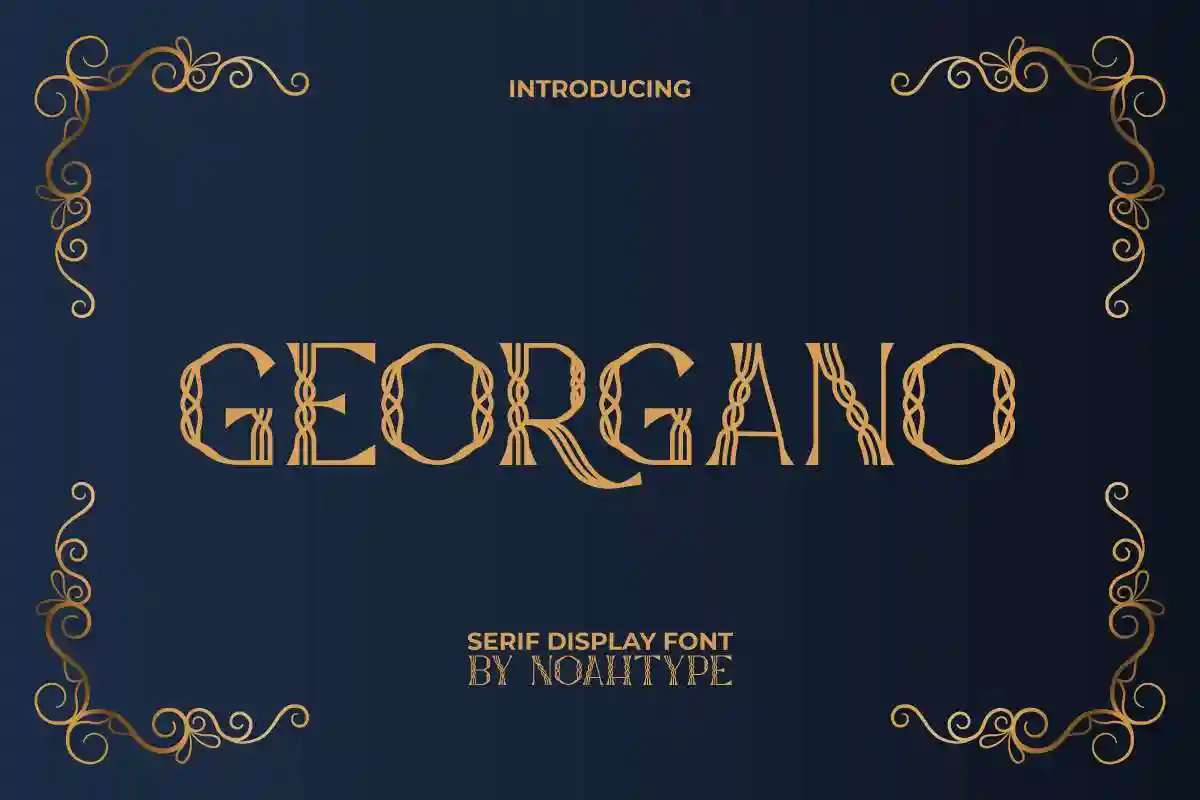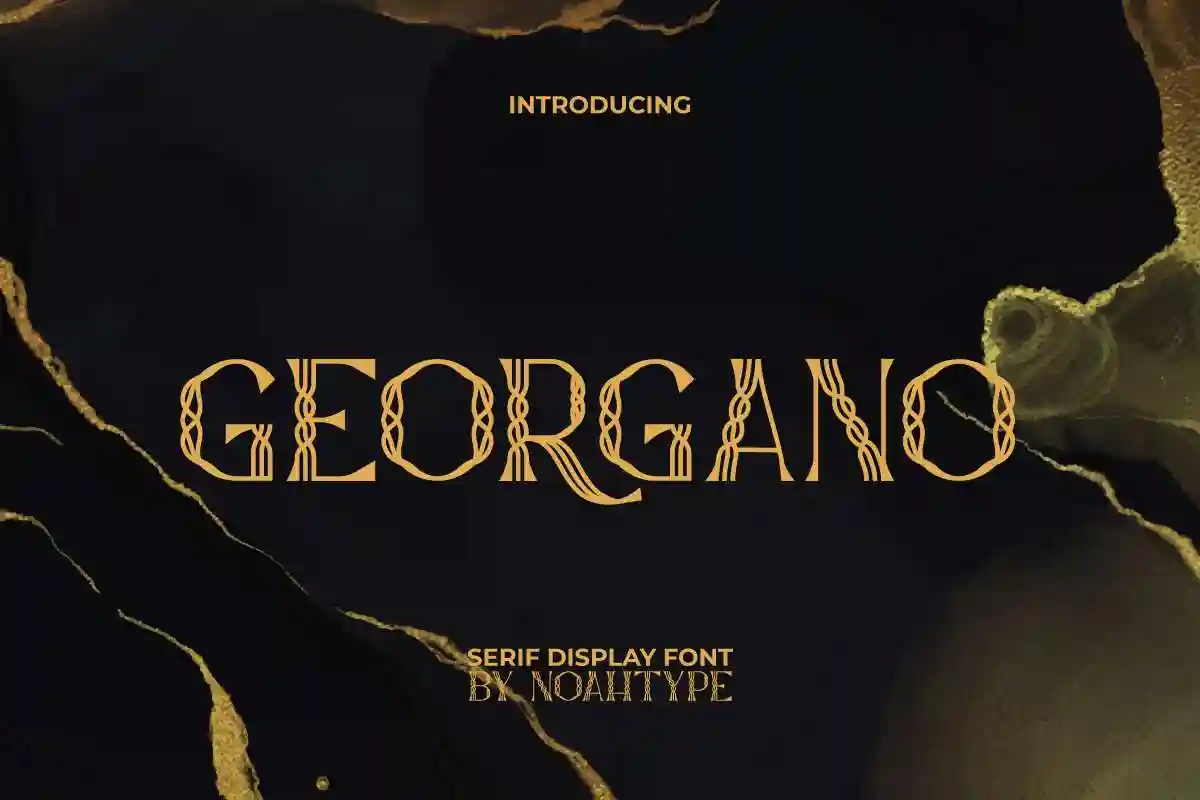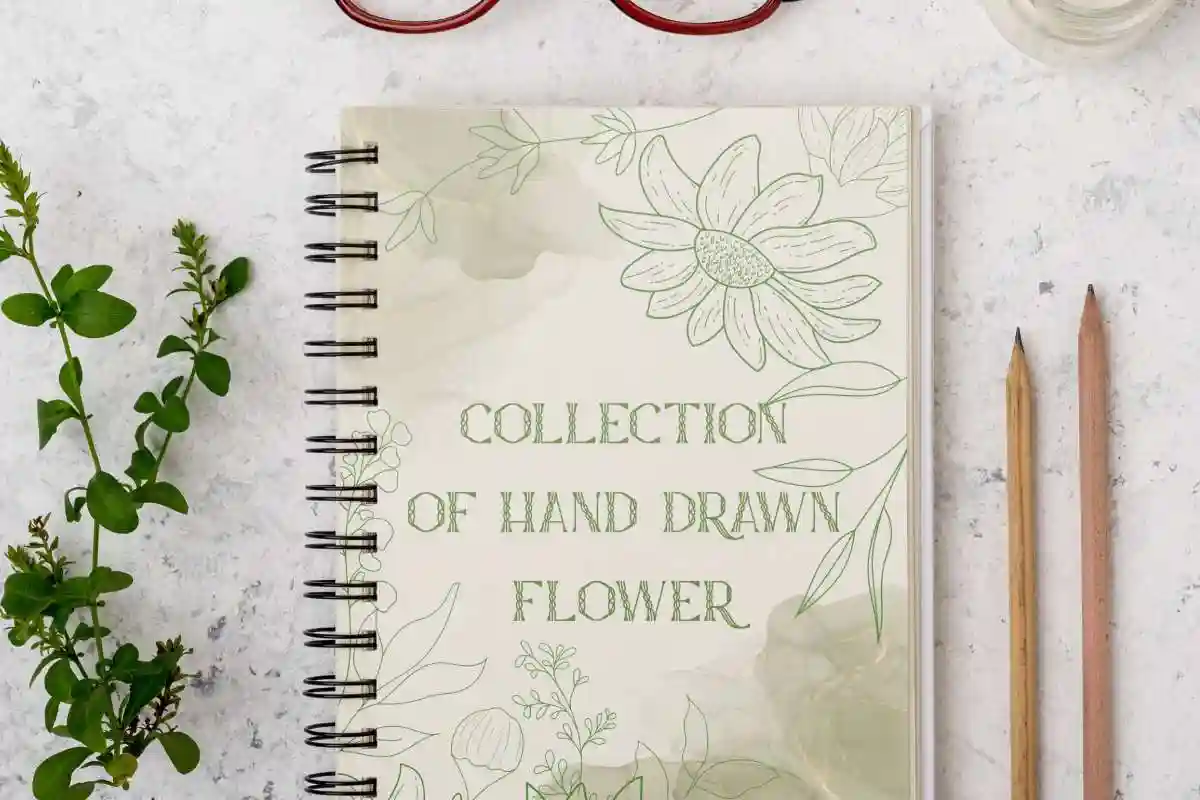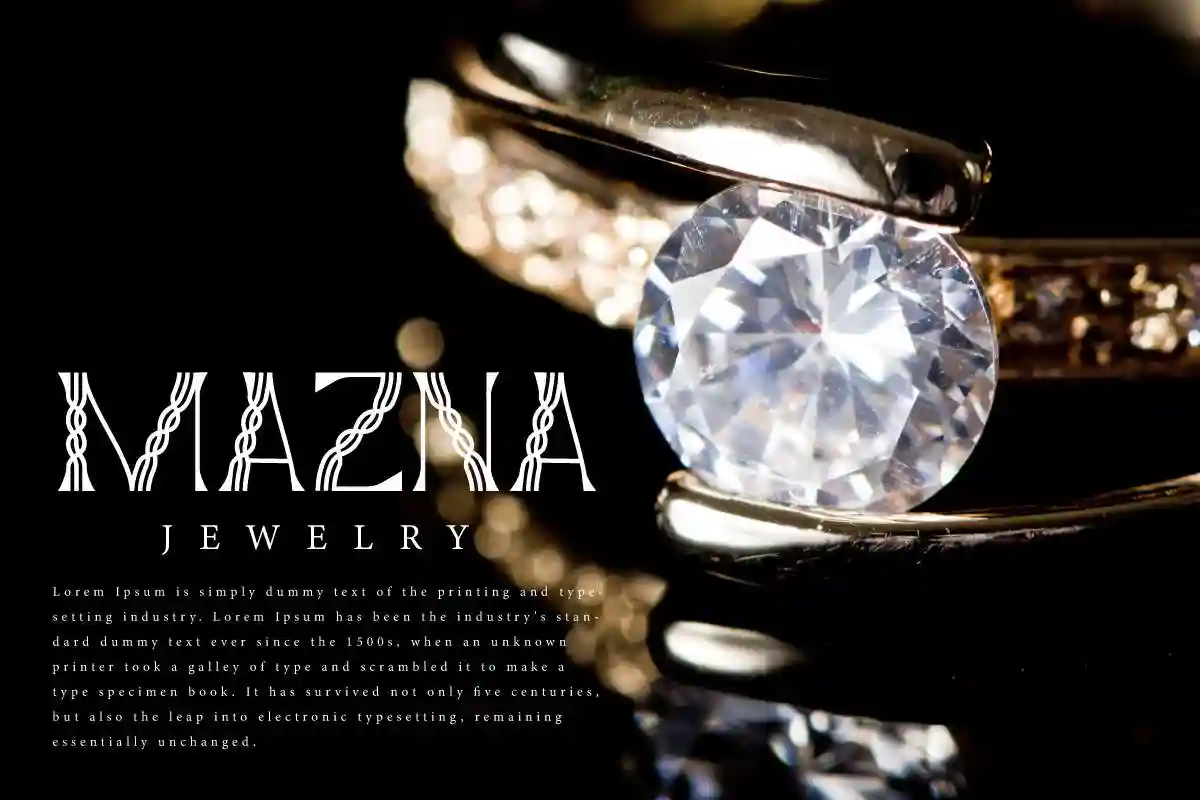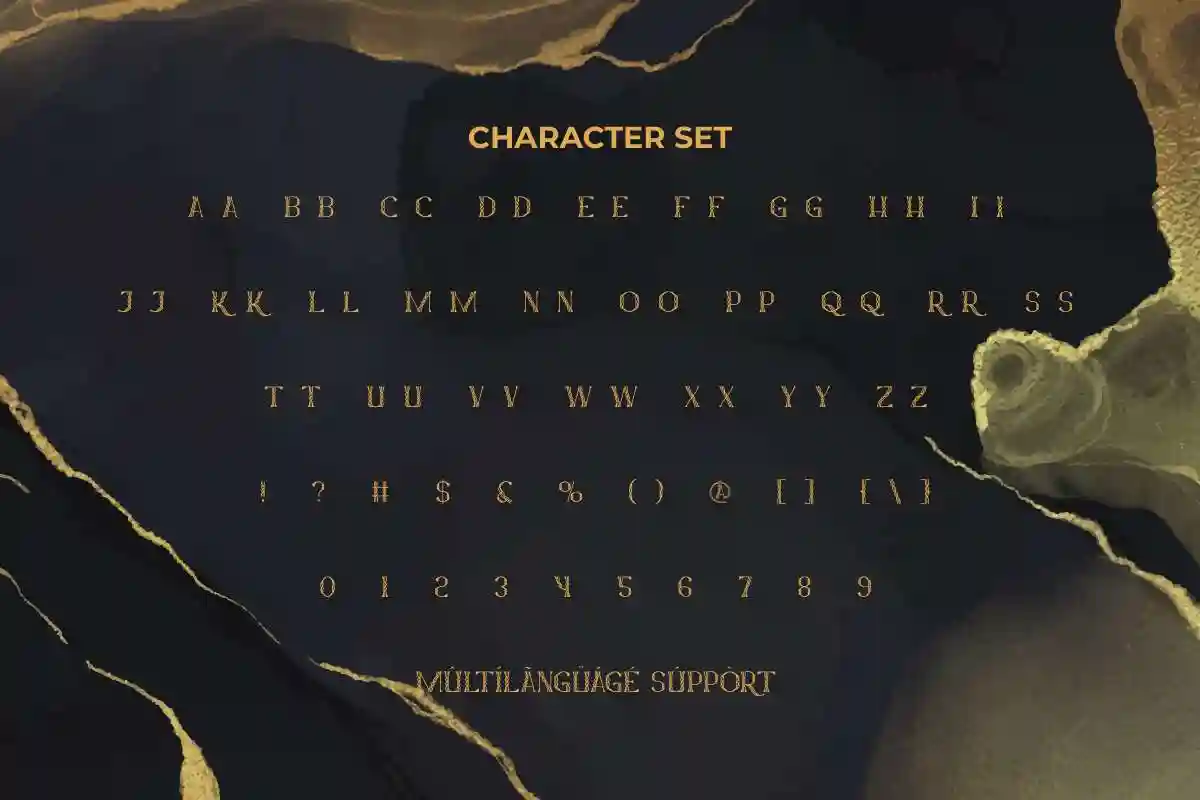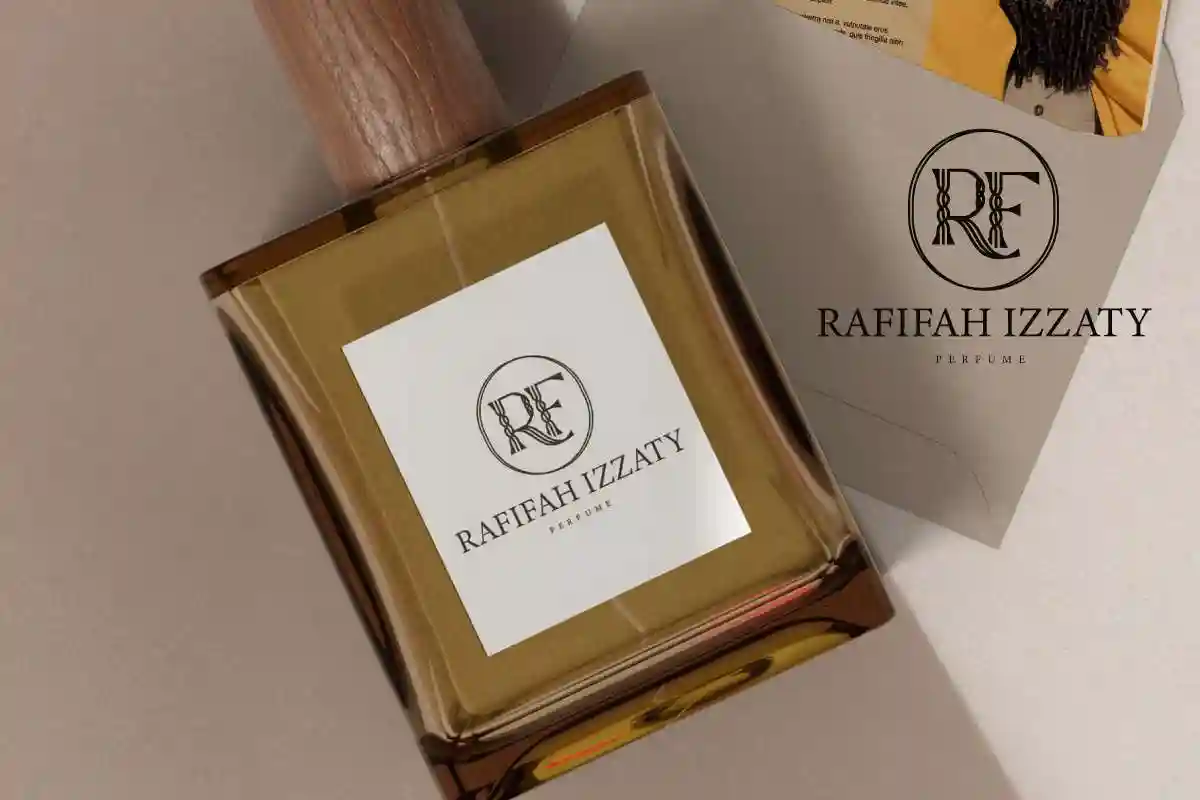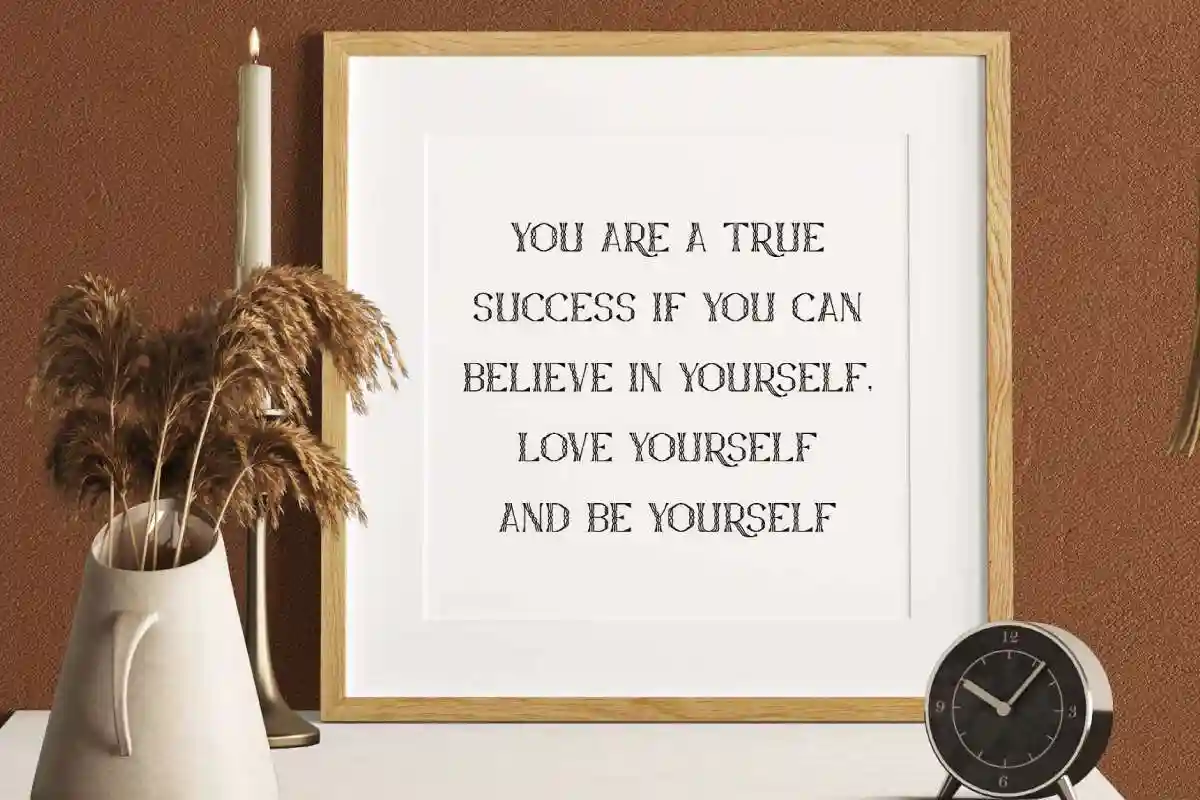
Georgano Font is a contemporary serif display font with uniquely retro luxury touch. This font has a bit of a royal touch when you use it with gold. With its uniqueness it will make you want to include it in the design, such as catalog, custom design, greeting card, invitation, label, magazine, poster, product packaging, screen printing, signage, stationery, website, and more!
Georgano Font include full set of ALL CAPS for Uppercase and Lowercase Basic Characters, Numerals, Punctuation, and Symbol. This font has the potential to be used in various industrial fields, such as accessories and jewelry, advertisement, art, boutique, cosmetic, event or wedding organizer, fashion, handicrafts, perfume, printing, publishing, restaurant, spa salon, etc.